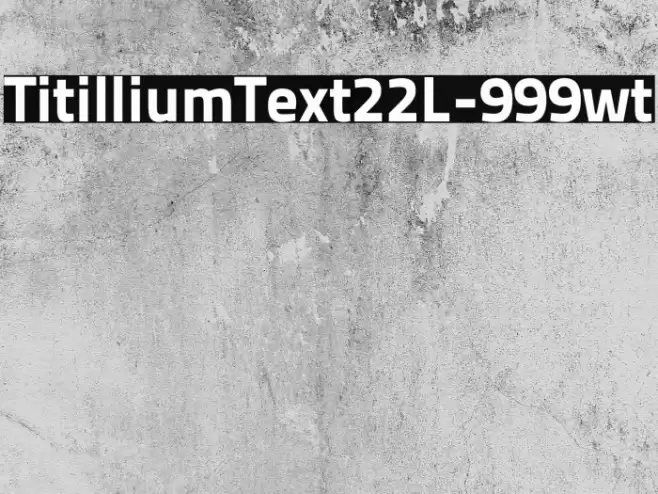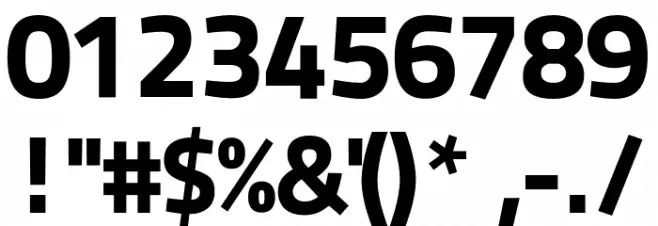
TitilliumText22L-999wt Font
TitilliumText22L-999wt Description
This font features a clean and modern design with a sans-serif style. The characters are bold and well-defined, offering excellent readability. The uppercase and lowercase letters maintain a consistent weight, providing a uniform appearance across the text. The numerals are clear and distinct, making them suitable for both digital and print media. Special characters are included, enhancing the font's versatility for various applications. The overall design is sleek and contemporary, making it ideal for modern branding and design projects.
A bold, modern sans-serif font with excellent readability from Uncategorized fonts.